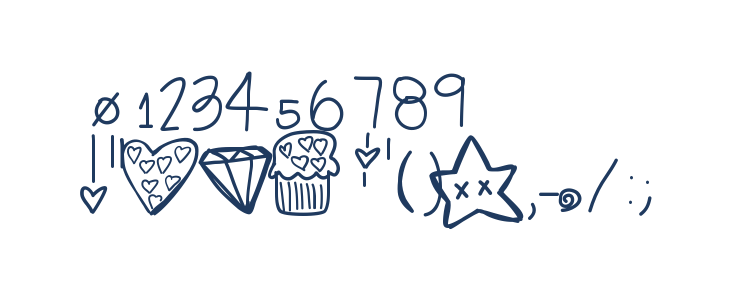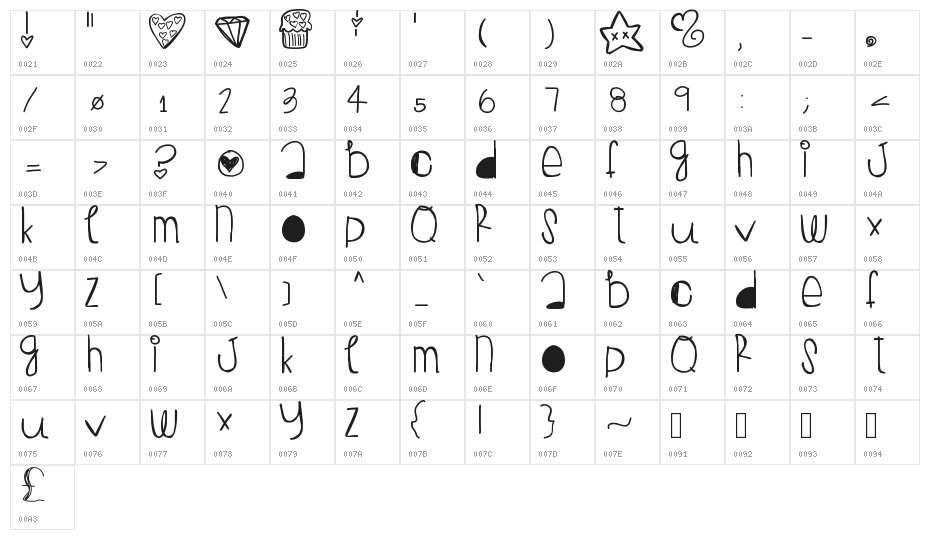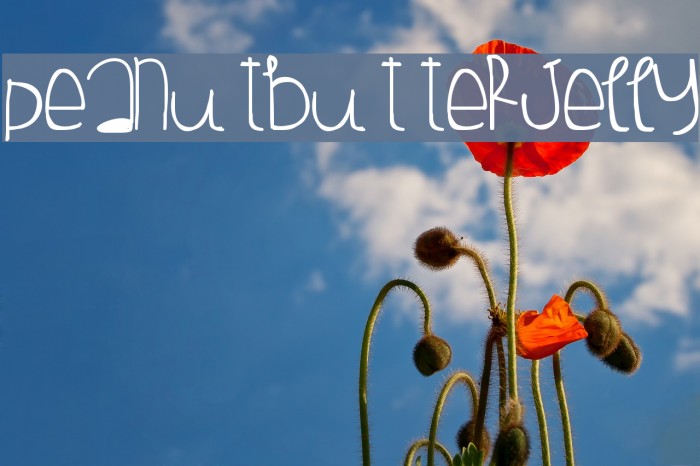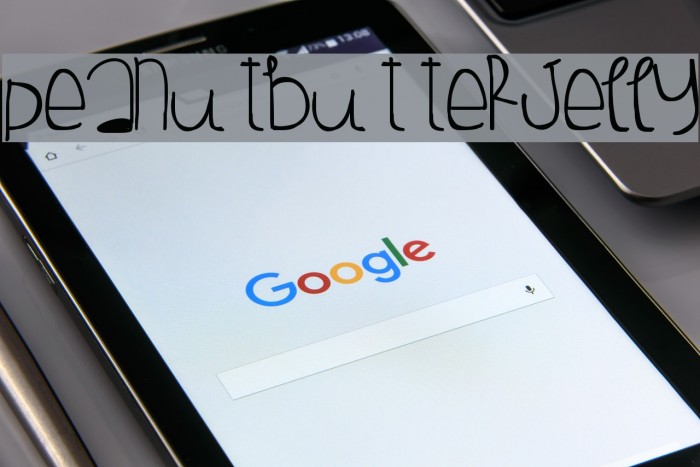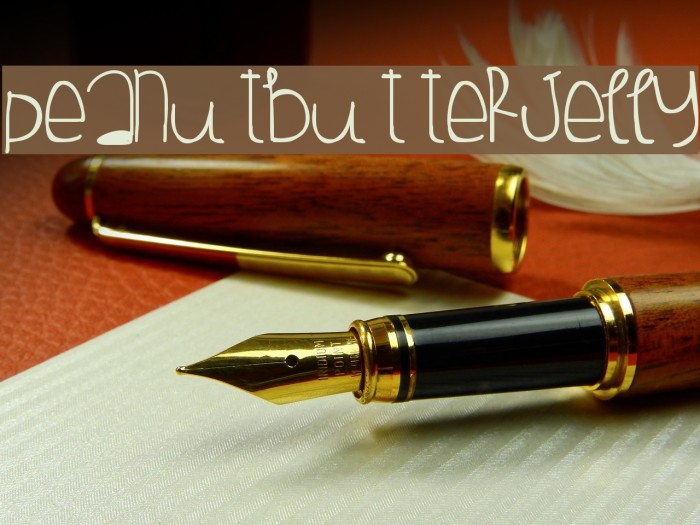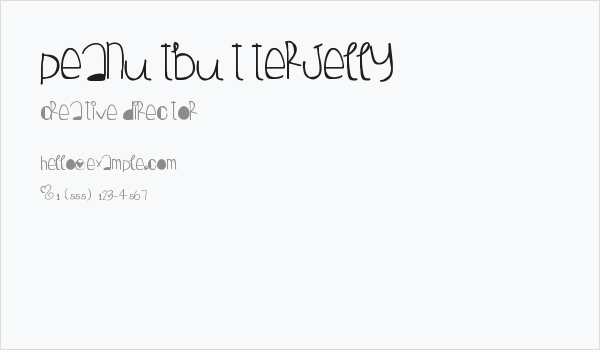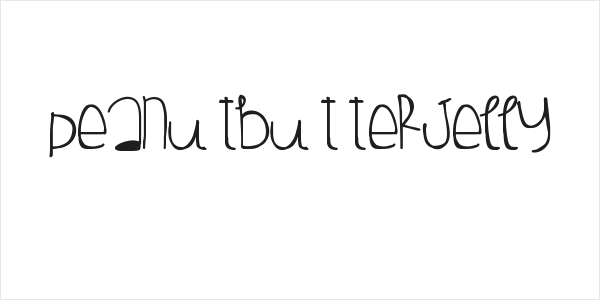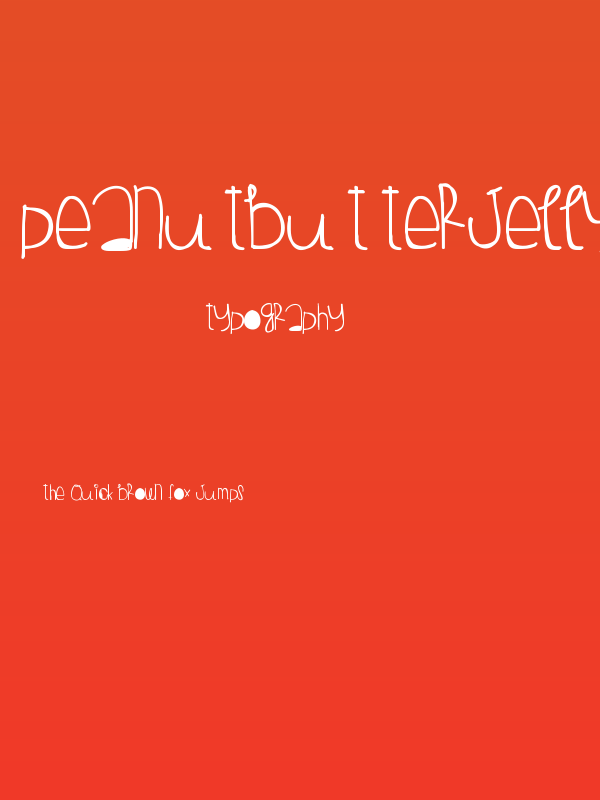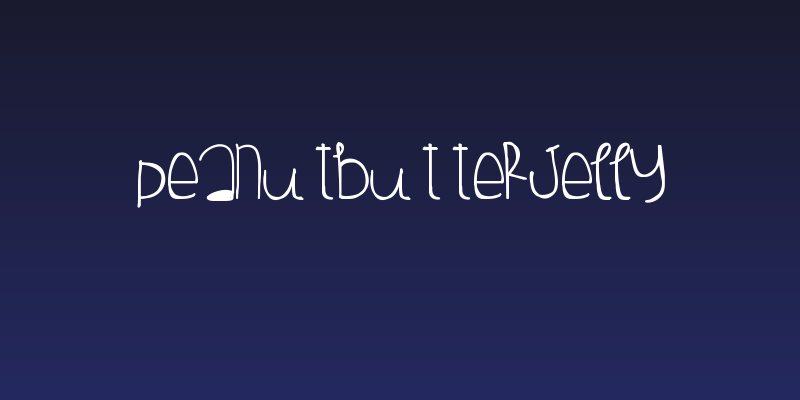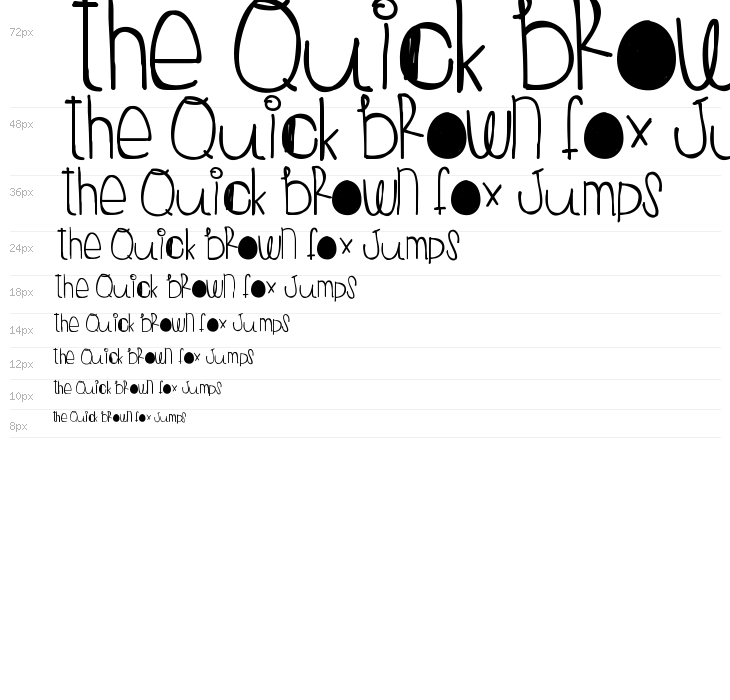
PeanutButterJelly Font
PeanutButterJelly Description
This playful and whimsical font features a unique hand-drawn style with a quirky and artistic flair. The letters are characterized by their uneven strokes and varying thickness, giving them a lively and dynamic appearance. The uppercase and lowercase letters maintain a consistent style, with rounded edges and a slightly irregular baseline that adds to the font's charm. The numbers and special characters are equally expressive, incorporating playful elements that enhance the overall aesthetic. This font is perfect for projects that require a fun and informal touch, such as children's books, greeting cards, or creative branding.
Overall StyleWhimsical
Use CaseHeadlines, Logos, Creative projects
Proposed ProjectsIdeal for children's books, greeting cards, playful branding, and creative projects.